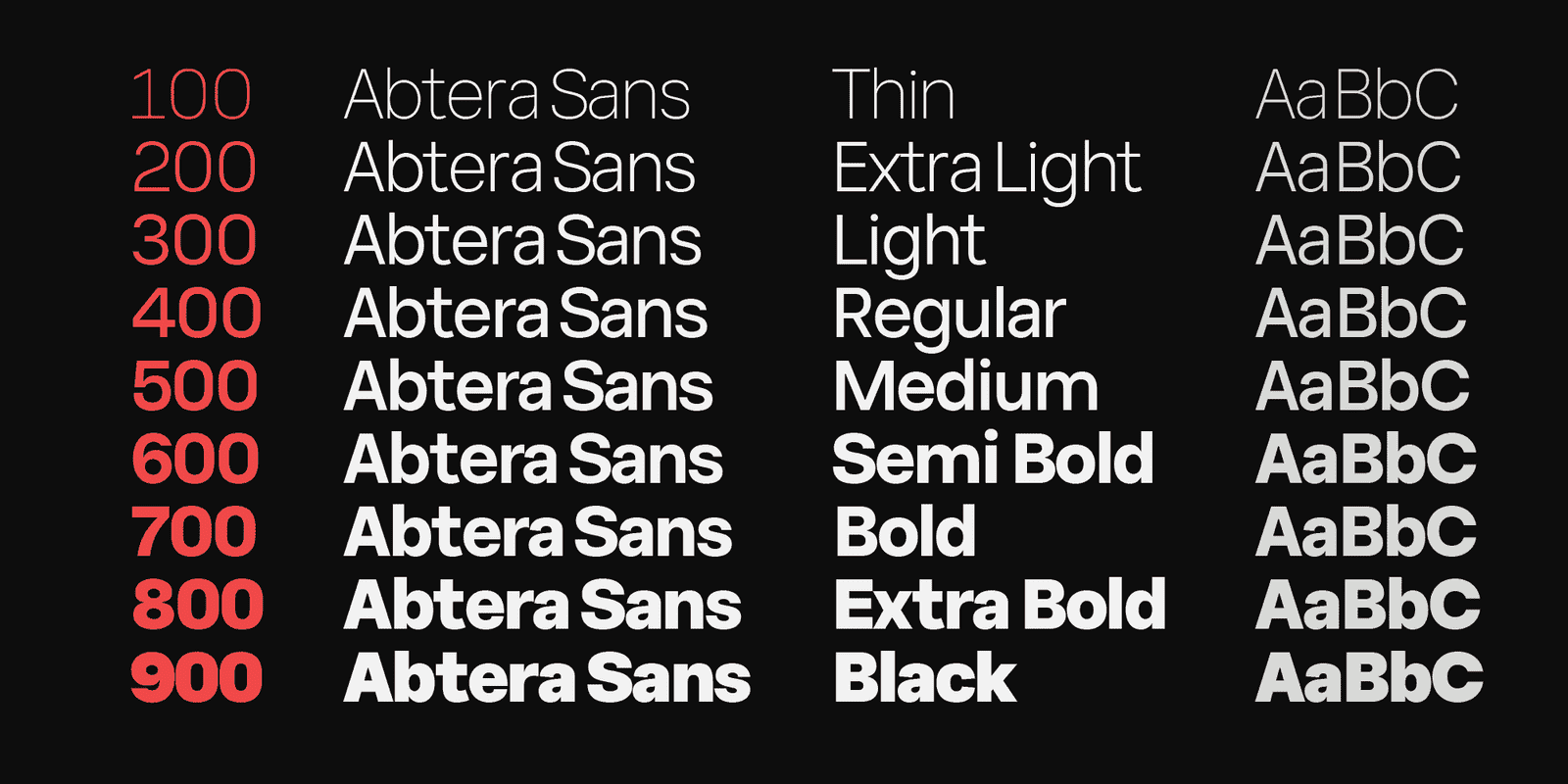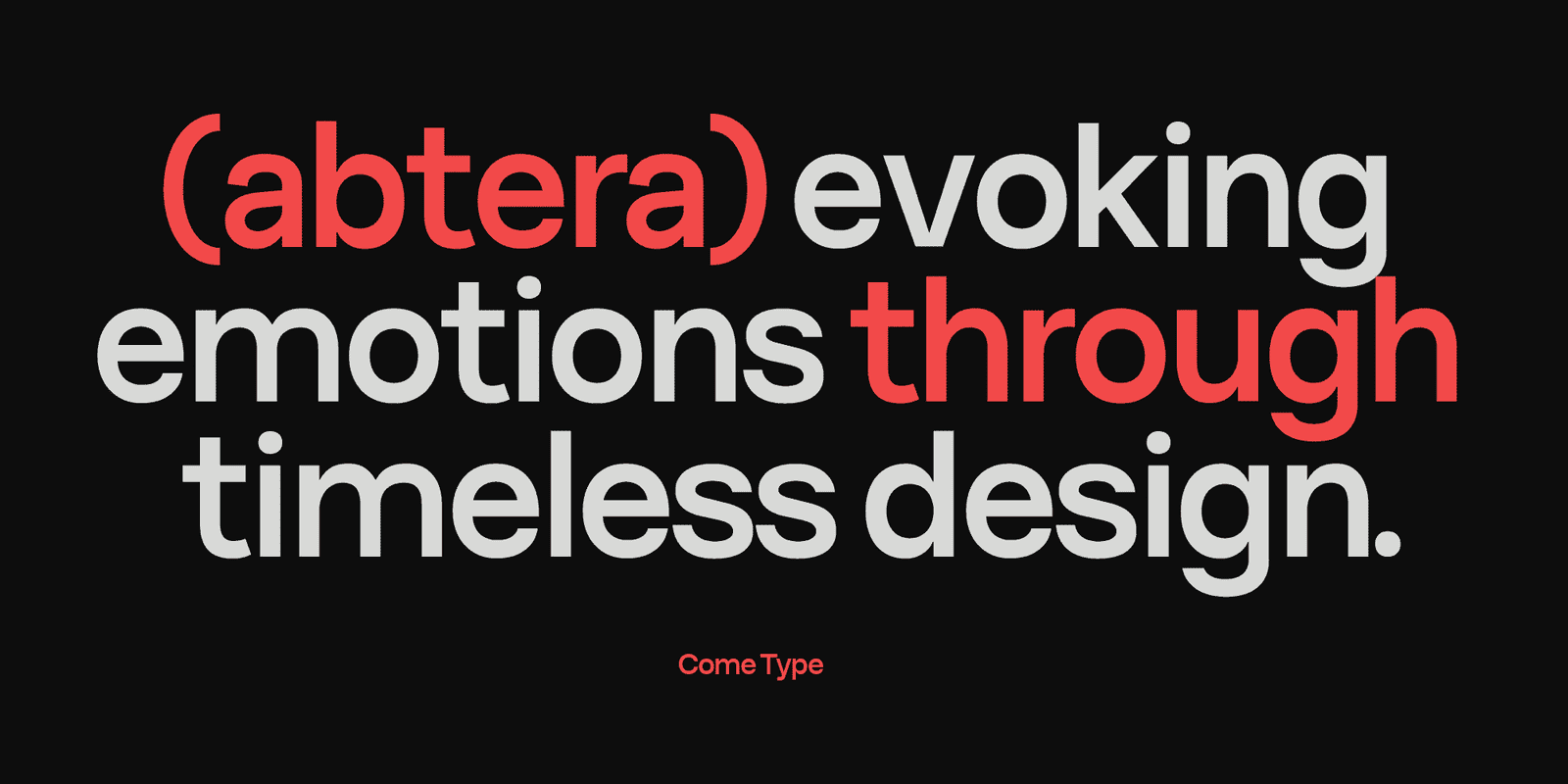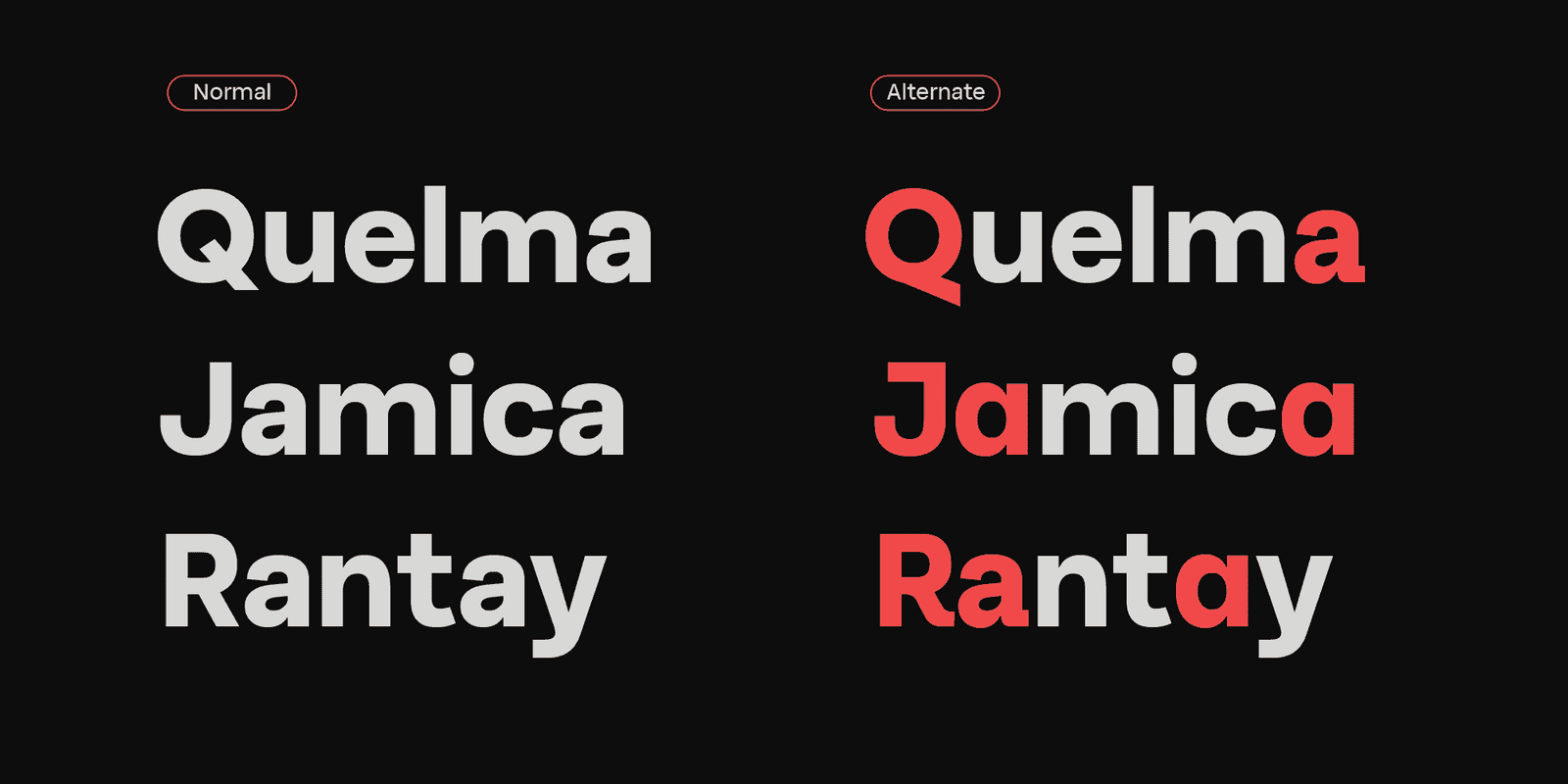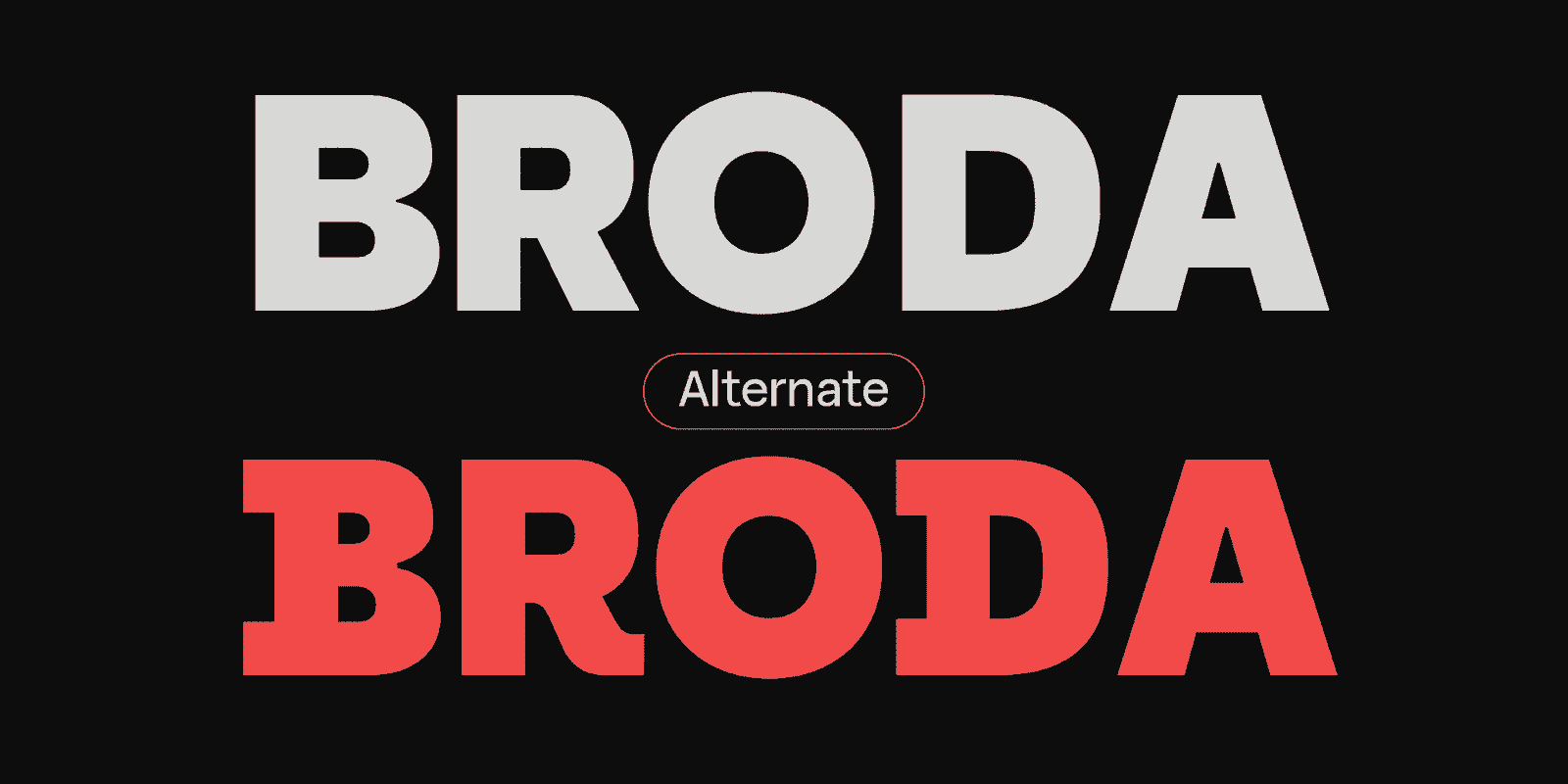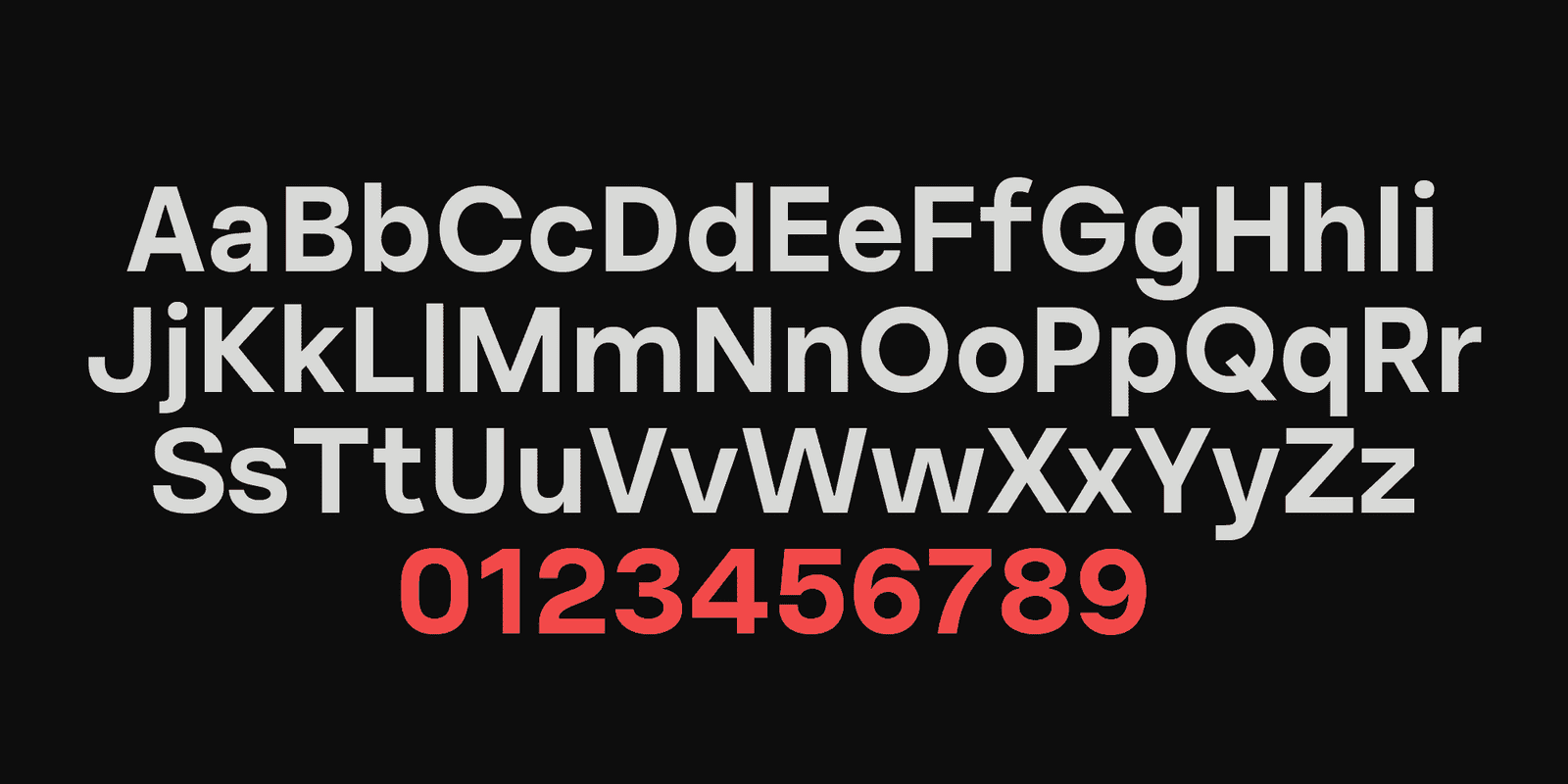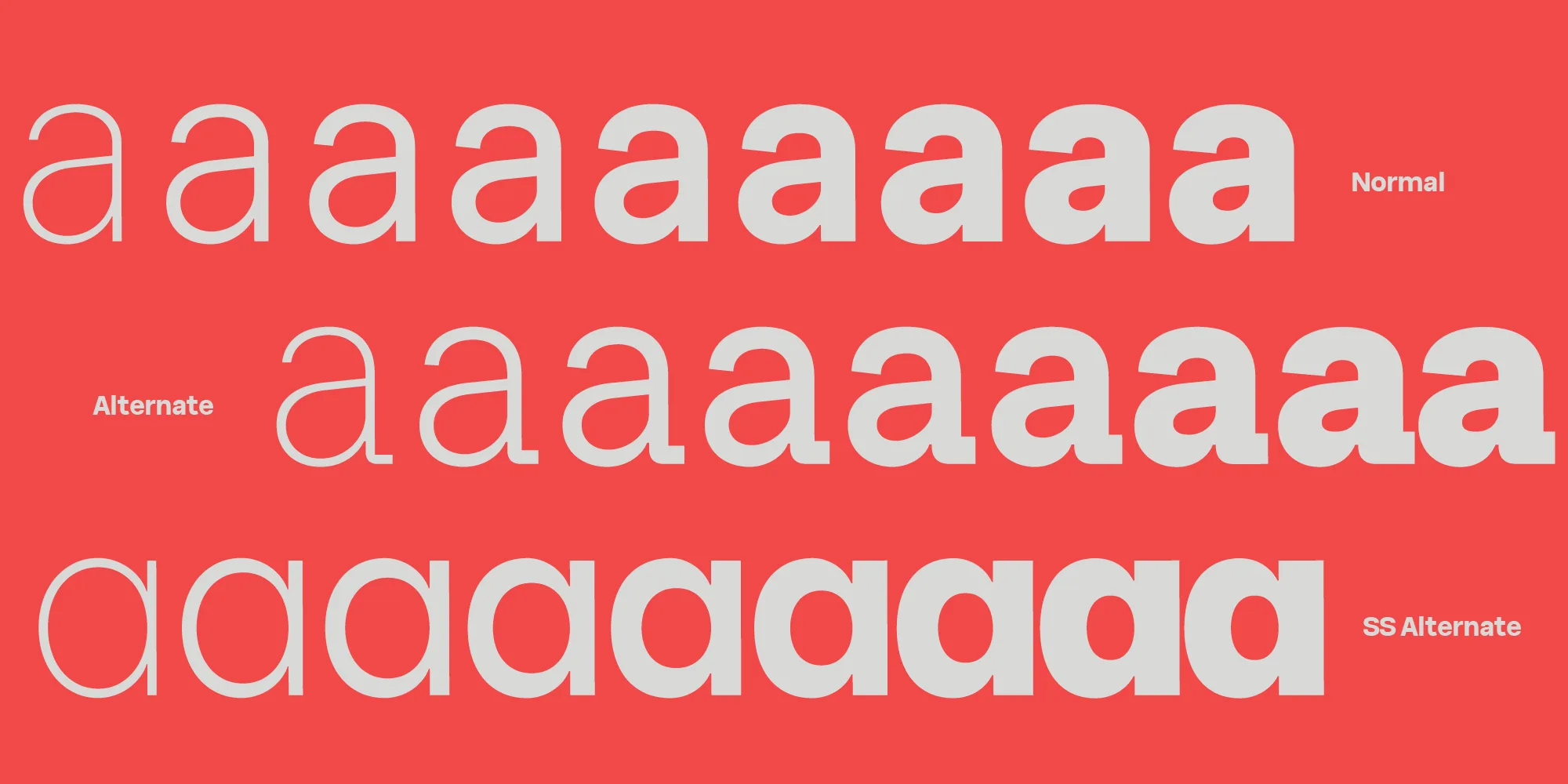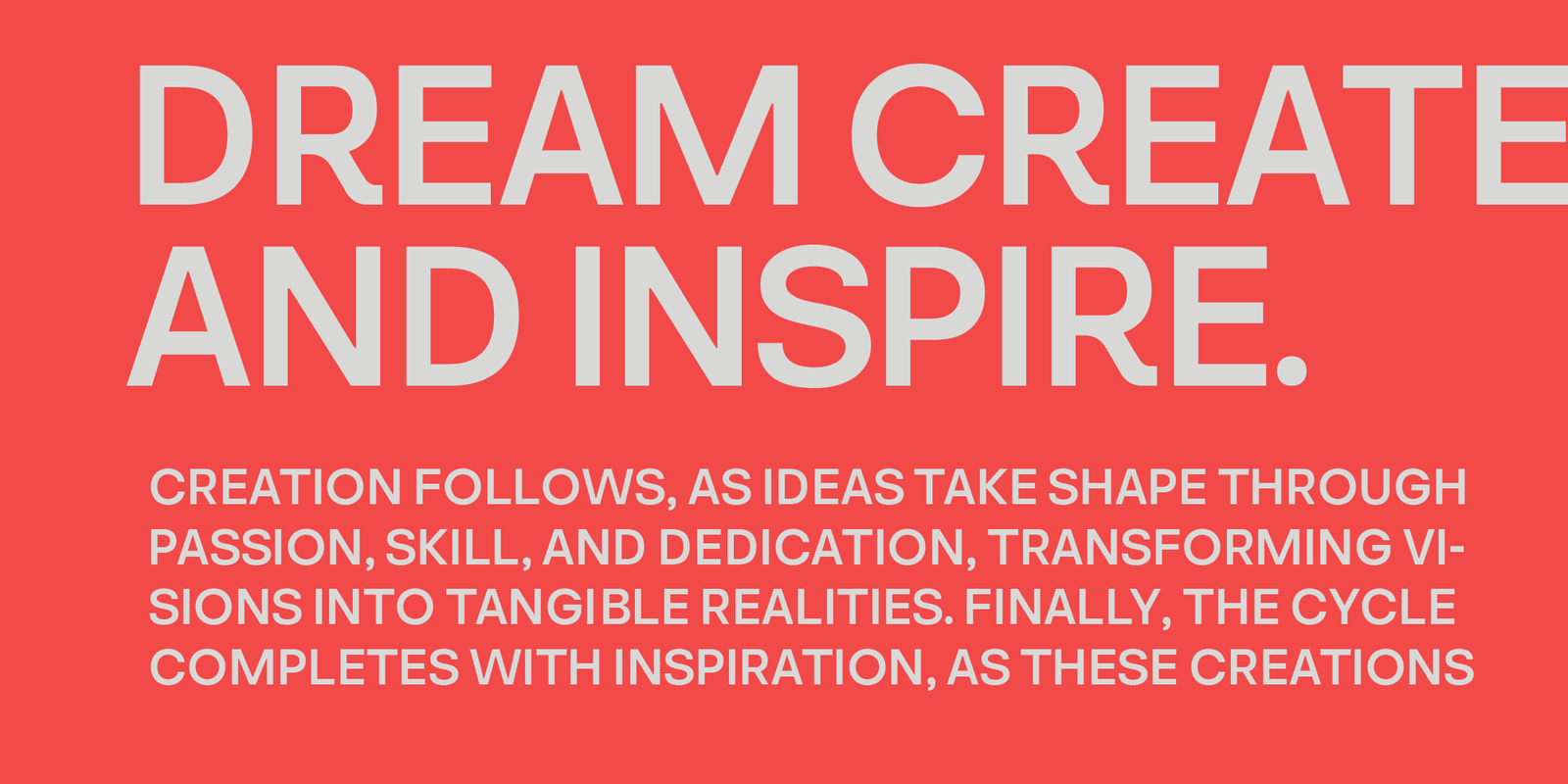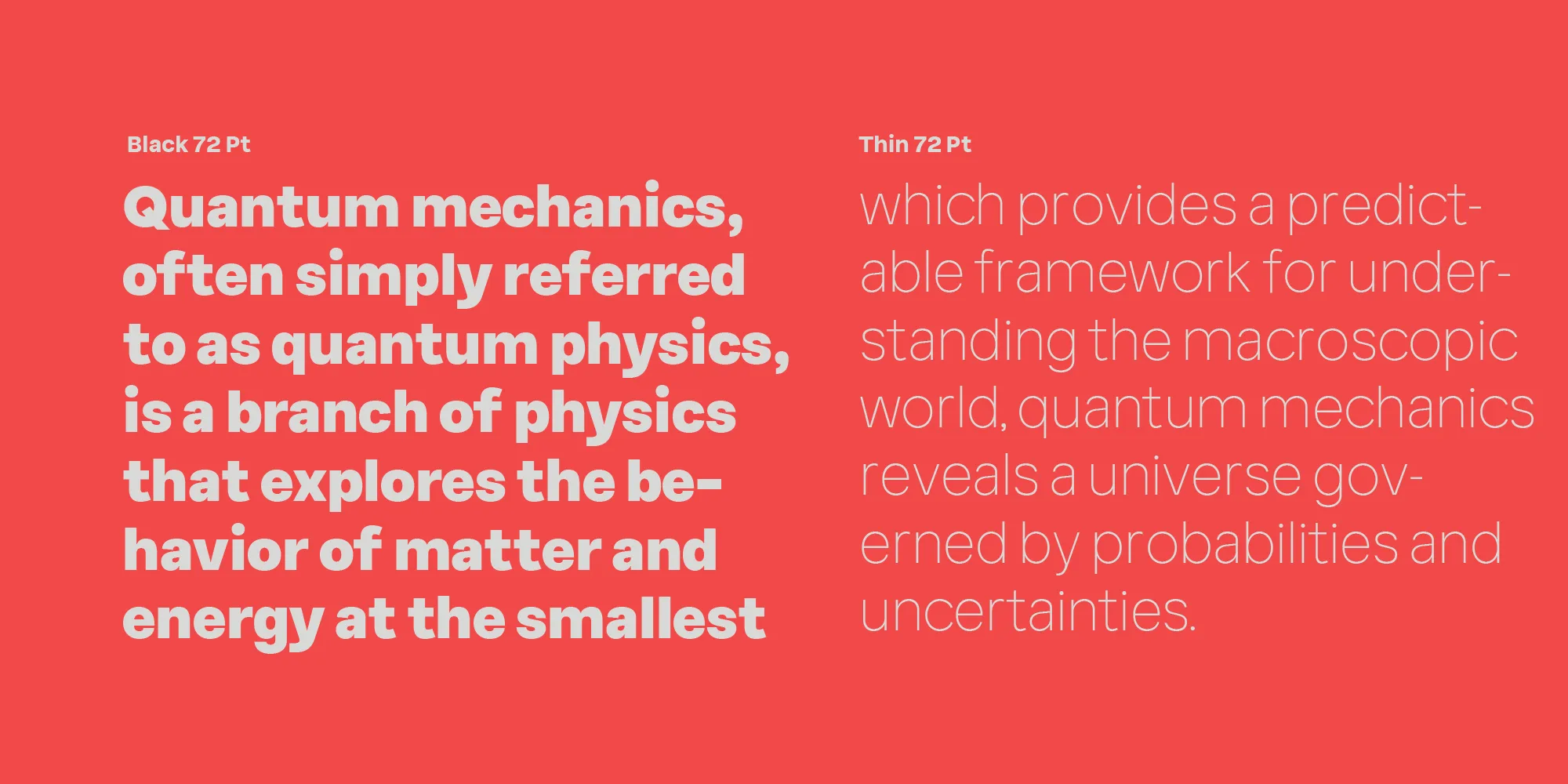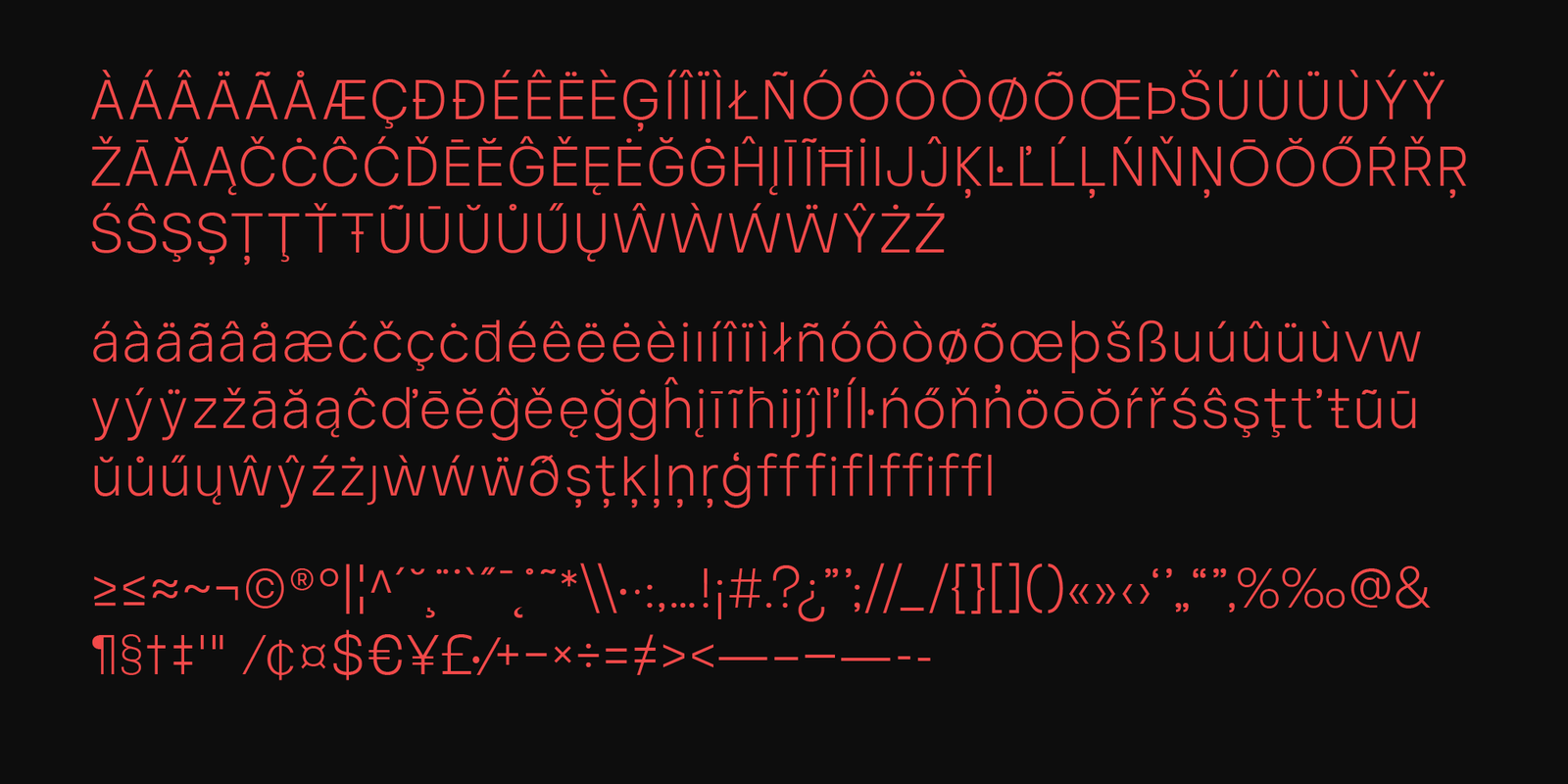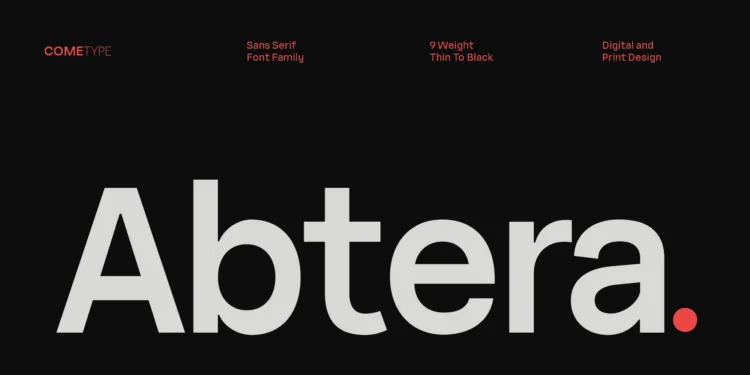
Abtera Sans is a sleek and modern sans-serif font family designed to bring clarity and sophistication to your projects. With 9 distinct styles, from Thin to Black, Abtera offers exceptional versatility for various design needs, including branding, editorial layouts, and digital interfaces.
This font features clean lines, a minimalist aesthetic, and thoughtfully designed alternative characters for added creative flexibility. Alternative glyphs are available for letters B, D, G, J, M, Q, R, and a, giving you more options to personalize your designs.
Its well-balanced proportions ensure legibility at any size, while its extensive multilingual support makes it perfect for global applications. Whether you’re crafting bold headlines, subtle body text, or impactful visuals, Abtera sans adapts seamlessly to enhance your creative vision.